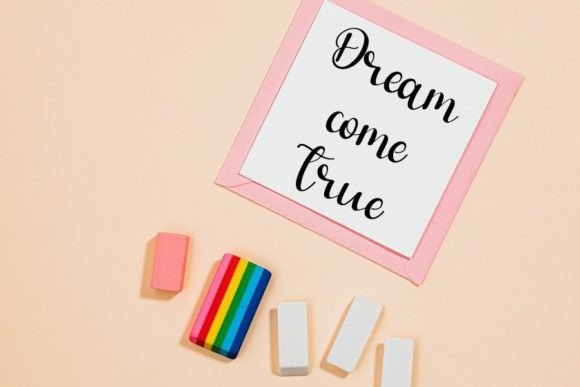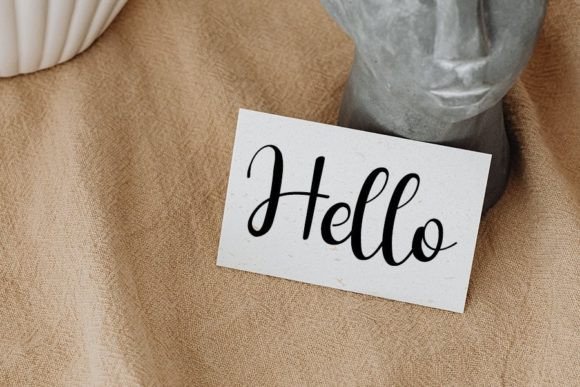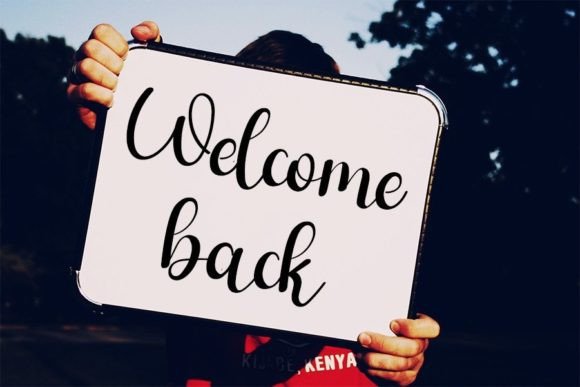
About Setting Font
Setting is a meticulously crafted and beautiful handwritten font, distinguished by its neat and elegant touch. This font is the perfect choice for a wide array of projects, bringing an element of sophistication and timelessness. Whether you’re working on branding, invitations, posters, or any other creative endeavor, Setting’s distinct and timeless style is sure to captivate, allowing you to create designs that stand out with a touch of elegance.
The neat and precise strokes of Setting contribute to its polished and refined appearance. This makes it well-suited for projects that require a clean and sophisticated aesthetic. Whether used in print or digital media, Setting adds a layer of grace and beauty to your typography.
The handwritten quality of the font adds a personal and authentic touch to your projects, fostering a connection with your audience. Versatile in nature, Setting adapts seamlessly to different design contexts, providing a consistent sense of style across various applications.
Setting’s timeless style ensures its relevance across different design trends. Its classic and enduring quality makes it adaptable to various aesthetics, from modern to more traditional. This versatility allows you to integrate Setting into your creative vision, making it a valuable asset for a broad range of projects.
In essence, Setting is more than just a font; it’s a design tool that allows you to infuse a distinct and timeless elegance into your projects. Fall in love with the beauty of Setting as you explore its potential to enhance your designs, creating a visual language that is both sophisticated and captivating. Let Setting be the exquisite handwritten font that elevates your creations into a realm of spectacular design.